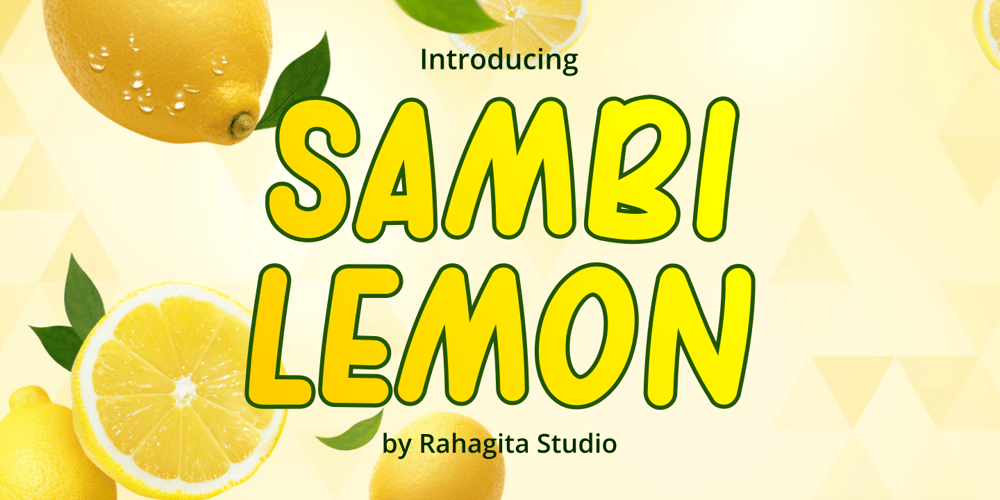
Sambi Lemon Font Family was designed by Setiadi Rahagita and published by RahagitaType. Sambi Lemon contains 1 styles and family package options. Sambi Lemon is an uppercase awesome font suitable for your many great project as branding, packaging, poster, comic, flyers, and more. Features:- Uppercase & Lowercase- Multi-lingual Support